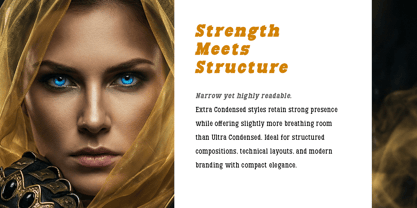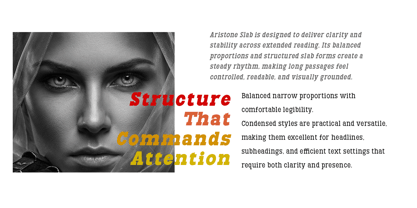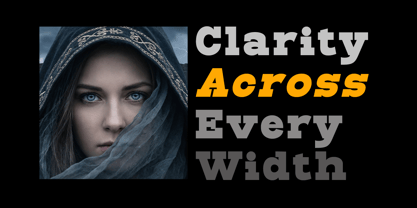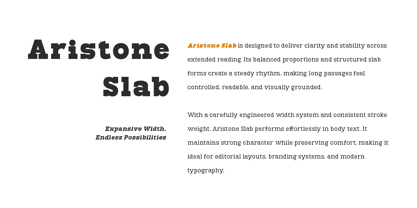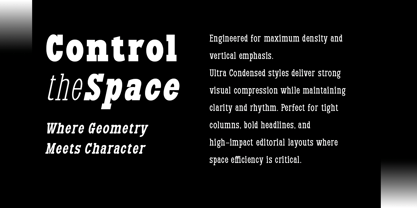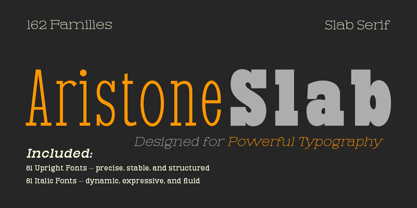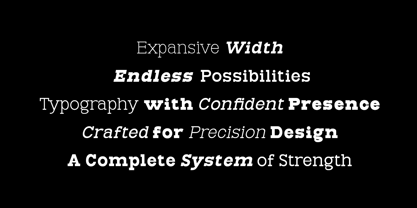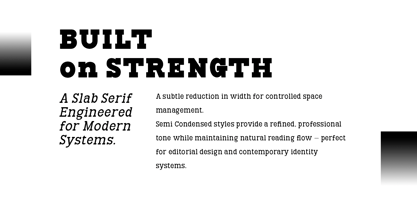
Aristone Slab
von Artisan Studio
Die Schriftfamilie Aristone Slab wurde von Roiyani Teungku entworfen und von Artisan Studio veröffentlicht. Aristone Slab enthält 162 Stile und Familienpaketoptionen. Mehr über diese Familie
Aristone Slab — 162 Fonts Aristone Slab is a powerful and versatile slab serif typeface designed for precision, impact, and visual control. Built with a structured geometric foundation and confident slab terminals, it balances strength with refinement across an extensive width system. Each width category contains 18 styles — 9 upright fonts and 9 matching italics, providing full typographic flexibility from rigid editorial layouts to expressive display settings. Ultra Condensed Engineered for maximum density and vertical emphasis. Ultra Condensed styles deliver strong visual compression while maintaining clarity and rhythm. Perfect for tight columns, bold headlines, and high-impact editorial layouts where space efficiency is critical. Extra Condensed Narrow yet highly readable. Extra Condensed styles retain strong presence while offering slightly more breathing room than Ultra Condensed. Ideal for structured compositions, technical layouts, and modern branding with compact elegance. Condensed Balanced narrow proportions with comfortable legibility. Condensed styles are practical and versatile, making them excellent for headlines, subheadings, and efficient text settings that require both clarity and presence. Semi Condensed A subtle reduction in width for controlled space management. Semi Condensed styles provide a refined, professional tone while maintaining natural reading flow — perfect for editorial design and contemporary identity systems. Normal The core foundation of Aristone Slab. Normal width styles offer optimal readability, balanced proportions, and strong typographic stability — suitable for everything from body text to branding and interface design. Semi Expanded Slightly wider proportions for improved openness and readability. Semi Expanded styles enhance visual comfort and presence without losing structural discipline, making them ideal for premium layouts and spacious compositions. Expanded Confident horizontal presence with strong visual impact. Expanded styles create a bold and expressive typographic voice, excellent for display use, headlines, and branding that demands attention. Extra Expanded Wide, commanding, and highly expressive. Extra Expanded styles emphasize structure and rhythm across large horizontal space — perfect for dramatic titles, posters, and modern visual identities. Ultra Expanded Maximum width for striking visual dominance. Ultra Expanded styles deliver monumental presence and architectural clarity, designed for large-scale typography, statement branding, and high-end display environments. Style System Every width in Aristone Slab includes: 9 Upright Fonts — precise, stable, and structured 9 Italic Fonts — dynamic, expressive, and fluid This complete system ensures seamless hierarchy, contrast, and typographic consistency across all design applications.
Designer: Roiyani Teungku
Foundry: Artisan Studio